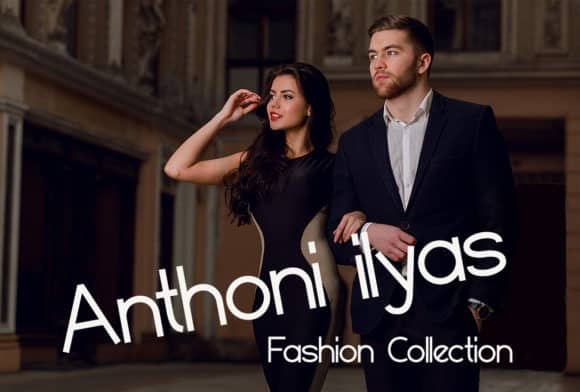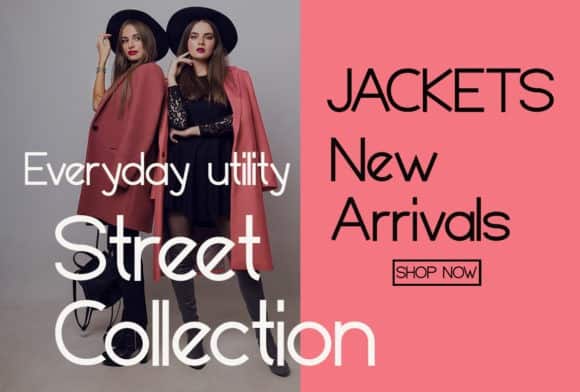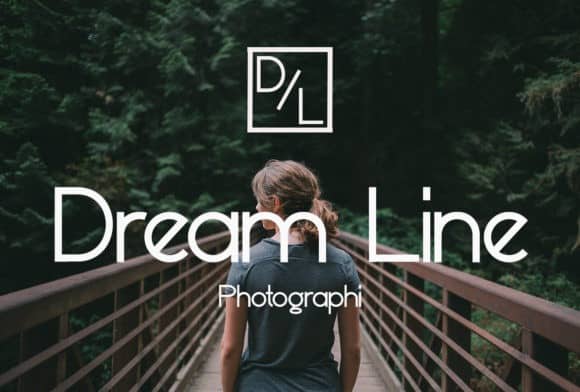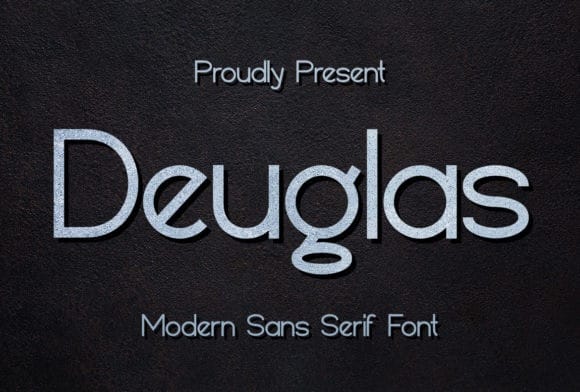
Deuglas Sans Serif Font
Introducing Deuglas Sans Serif Font. Its clean appearance and Light-weight makes it a wonderful selection for being paired with more decorative, elaborate subheading fonts. Deuglas Sans Serif Font is designed and shared by sartstudio. It’s a minimal and neat sans serif font. It can easily be matched to an incredibly large set of projects, so add it to your creative ideas and notice how it makes them stand out!